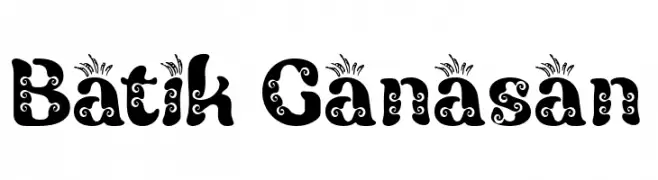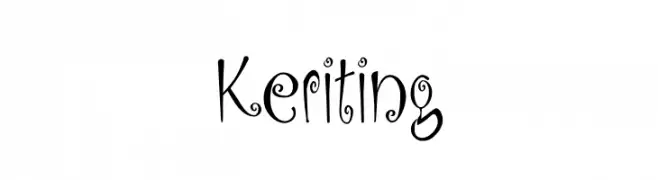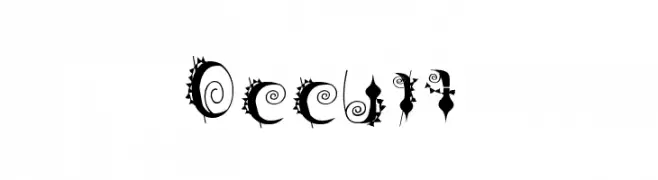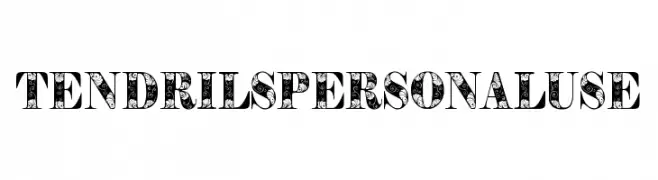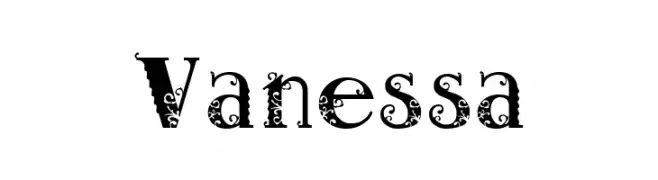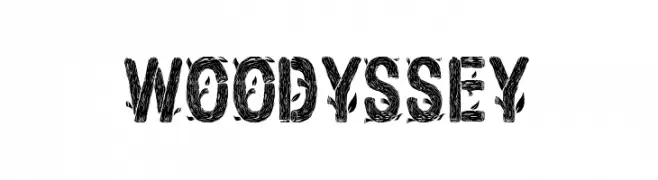
( Fonts by Billy Argel )
A bold, decorative font with floral patterns and geometric shapes.
( Fonts by Hanoded )
A bold, eroded font with a distressed and whimsical style.
( Fonts by Andry Andriansyah )
A decorative font with intricate swirls and bold, rounded shapes inspired by traditional batik designs.
( Fonts by EvasUniqueFonts )
An ornate and decorative font with intricate tendril patterns on each letter.
( Fonts by Audi Prasetya )
A whimsical, curly font with playful and decorative elements.
( Fonts by Gabrielle Welsh )
A decorative font with thorny embellishments and mystical swirls, ideal for occult-themed designs.
( Fonts by Ahmad Zulfikar Ali )
A textured, wood-grain inspired font with a bold, decorative style.